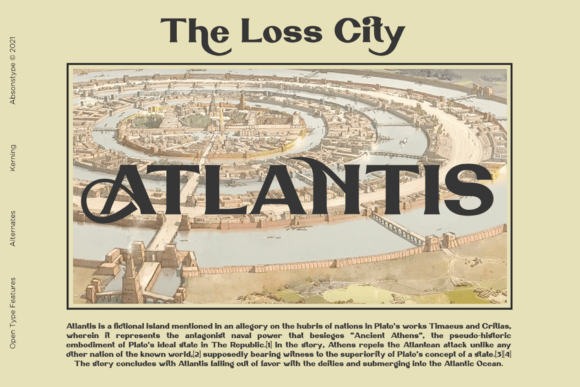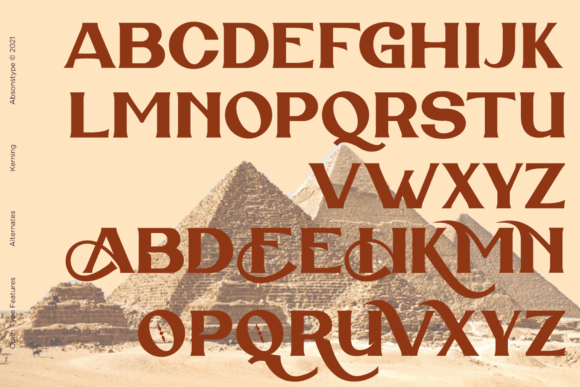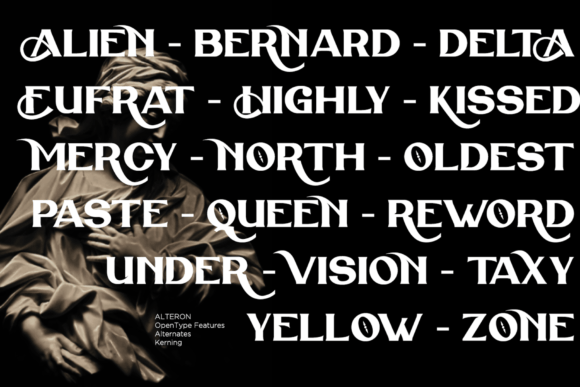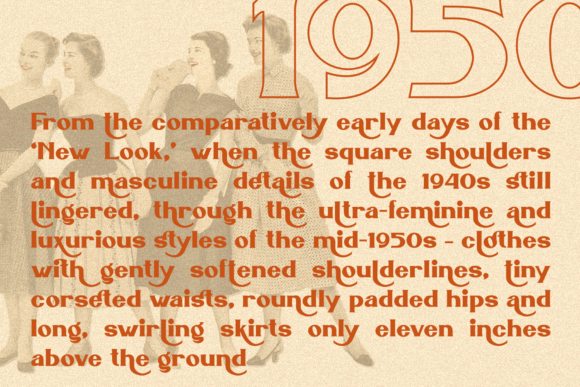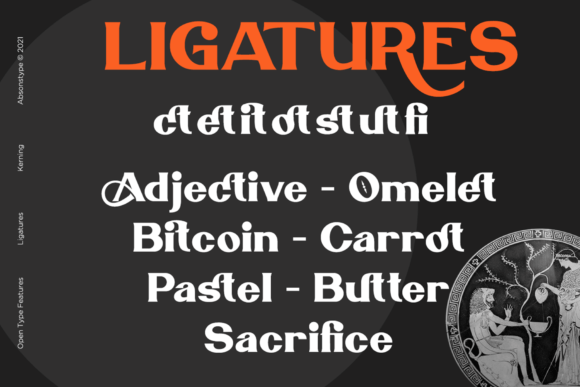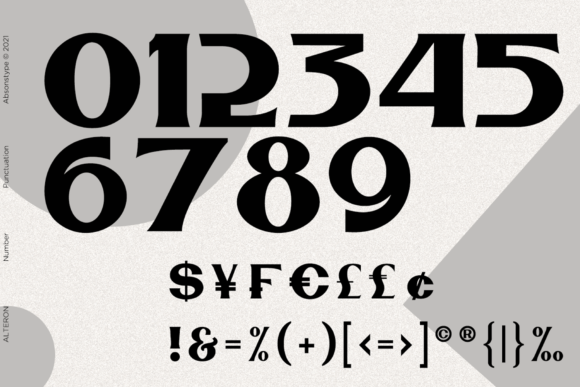
Introducing Alteron Font: The Epitome of Elegance and Sophistication
In the realm of typography, few fonts manage to convey the essence of luxury, class, and modernity as effortlessly as Alteron Font. This serif display font is a masterpiece of design, seamlessly blending elegant, classic curves with a romantic and stylish flair. Alteron is not just a font; it’s an experience, a statement piece that can elevate any design project to new heights of sophistication. Whether you’re a seasoned designer or a crafting enthusiast, Alteron is a must-have addition to your font collection.
The Essence of Alteron: A Perfect Blend of Luxury and High Fashion
Alteron Font embodies the perfect fusion of luxury and high fashion, making it an indispensable tool for designers and crafters aiming to create visually stunning and impactful designs. Its serif design adds a touch of traditional elegance, while its modern curves and lines infuse it with a contemporary appeal. This blend of classic and modern elements makes Alteron incredibly versatile, suitable for a wide range of design projects, from high-end branding and advertising to elegant stationery and digital media.
Why Alteron Stands Out in the World of Typography
What sets Alteron apart from other fonts in its category is its unique ability to convey a sense of romance, class, and modernity simultaneously. Its elegant curves are meticulously crafted to add a touch of sophistication to any text, making it perfect for designers who aim to create luxurious and high-fashion content. Moreover, Alteron’s readability, even at smaller sizes, ensures that your message is conveyed effectively without compromising on style.
Applications of Alteron Font: From Digital to Print
The versatility of Alteron Font makes it suitable for a myriad of applications. In the digital realm, it can be used to create stunning website headers, social media graphics, and email newsletters that demand attention and exude professionalism. For print, Alteron shines in luxury branding materials, high-end fashion magazines, and elegant event invitations. Its ability to command attention while maintaining readability makes it a favorite among designers who strive for excellence in their work.
Tips for Maximizing the Potential of Alteron Font
- Pair it Wisely: Combine Alteron with complementary fonts to create visual interest and hierarchy in your designs.
- Experiment with Sizes: Alteron’s versatility shines when used across various sizes, from large headings to smaller body text.
- Play with Colors: While Alteron looks stunning in classic black and white, experimenting with colors can add a unique touch to your designs.
- Use it for Headlines and Titles: Alteron’s luxurious feel makes it perfect for headlines and titles, where it can make a significant impact.
Conclusion: Elevate Your Designs with Alteron Font
Alteron Font is more than just a serif display font; it’s a key to unlocking a world of elegance, luxury, and modernity in your designs. Its unique blend of classic curves and contemporary flair makes it an invaluable asset for designers and crafters seeking to create impactful and visually stunning content. By incorporating Alteron into your font collection, you’re not just adding a font – you’re elevating your design capabilities to new heights of sophistication and style. Don’t wait to transform your designs with Alteron; add it to your collection today and start creating with unparalleled elegance and class.
| Font Name | Alteron Font |
| Author | Absonstype |